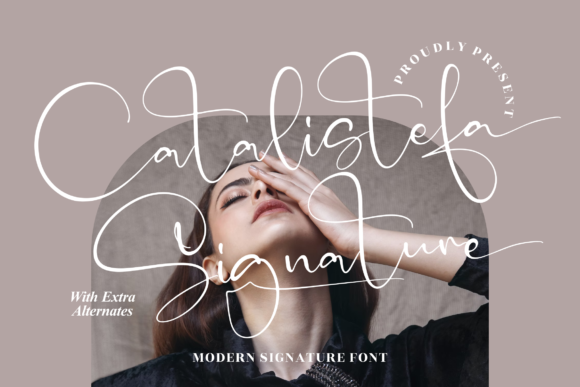
Unleash the Enchantment of Catalistefa Signature: A Journey Through Grace and Elegance
In a world of fleeting trends, Catalistefa Signature emerges as an oasis of timeless beauty. Cast your eyes upon this script font, and let its delicate curves and sweeping strokes transport you to a realm of elegance and grace. This font is not merely a collection of characters; it is an artistic testament to the power of penmanship.
With Catalistefa Signature, you hold the key to unlocking a world of creative possibilities. Whether you seek to design enchanting wedding invitations, heartfelt love letters, or eye-catching social media posts, this font will effortlessly elevate your words into works of art. Its versatility knows no bounds, seamlessly adapting to a myriad of projects, from personal branding to product packaging.
Imagine the joy of crafting a New Year's card that radiates warmth and cheer, adorned with the graceful strokes of Catalistefa Signature. Your loved ones will be captivated by the intricate details of each letter, feeling the sincerity of your message with every word. This font has the uncanny ability to transform ordinary words into expressions of heartfelt emotion, leaving an everlasting impression on the recipient's heart.
Dive into a world where creativity flourishes and beauty abounds. Catalistefa Signature is your passport to a realm of elegance, where your designs will captivate and inspire. Embrace the allure of this remarkable script font and elevate your projects to new heights of sophistication. Let the magic of Catalistefa Signature ignite your imagination and unveil the boundless potential that lies within your creative soul.